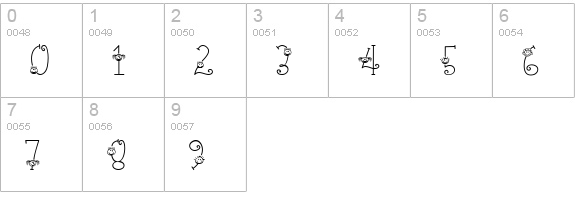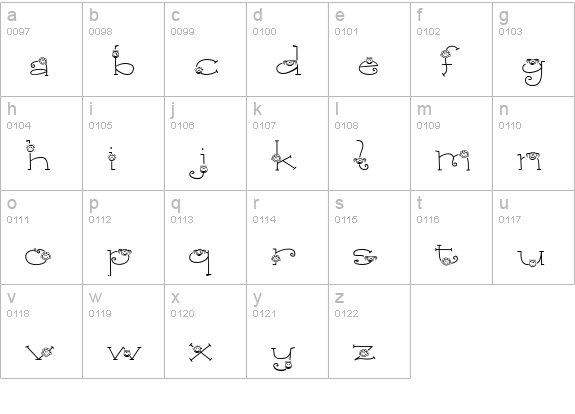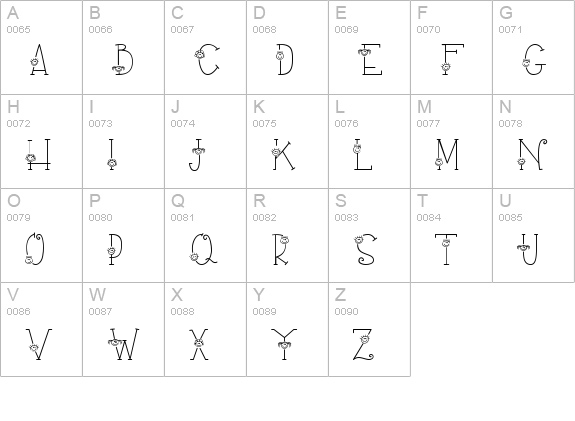
CK Happy Kids Font Details
Introducing CK Happy Kids font, a delightful and playful typeface that is sure to bring a smile to your designs. Created with care and attention to detail, this font captures the essence of childhood joy and innocence. Perfect for projects aimed at children or anyone looking to add a touch of whimsy to their work. CK Happy Kids font is not only fun and cheerful, but it is also versatile and easy to read. Its rounded edges and playful characters make it a great choice for a variety of design applications, from posters and invitations to logos and branding. Best of all, CK Happy Kids font is free to download at FontsMarket.com. Simply visit the website and start using this charming font in your projects today. Let CK Happy Kids font bring a sense of happiness and playfulness to your designs, and watch as it captivates your audience with its charm and personality.